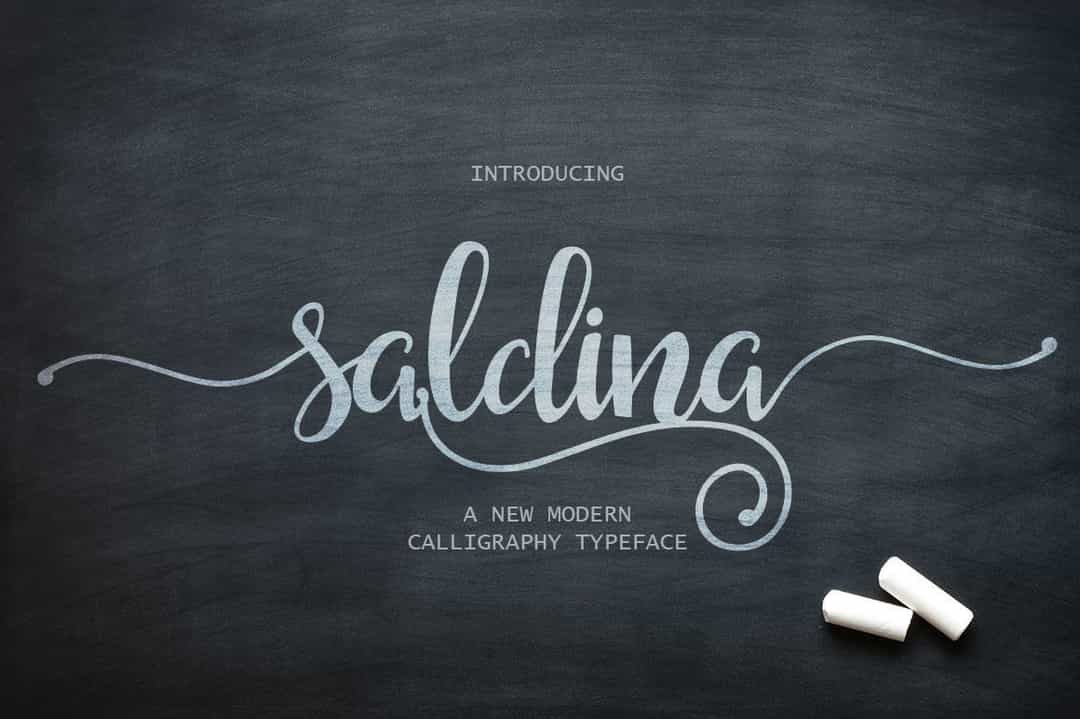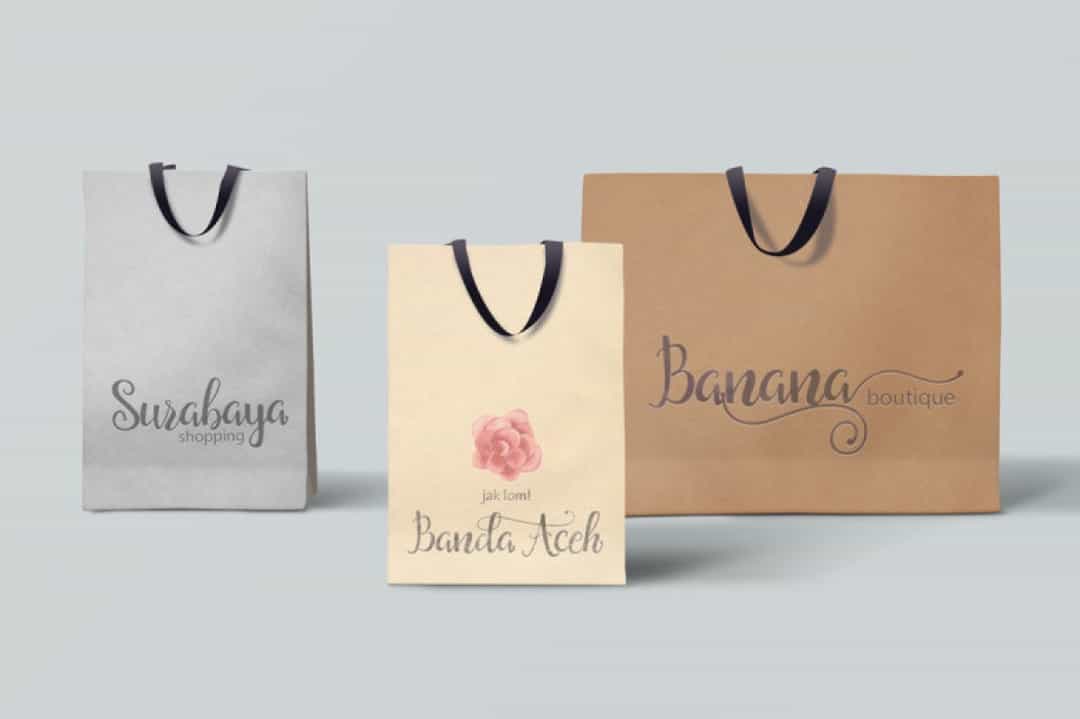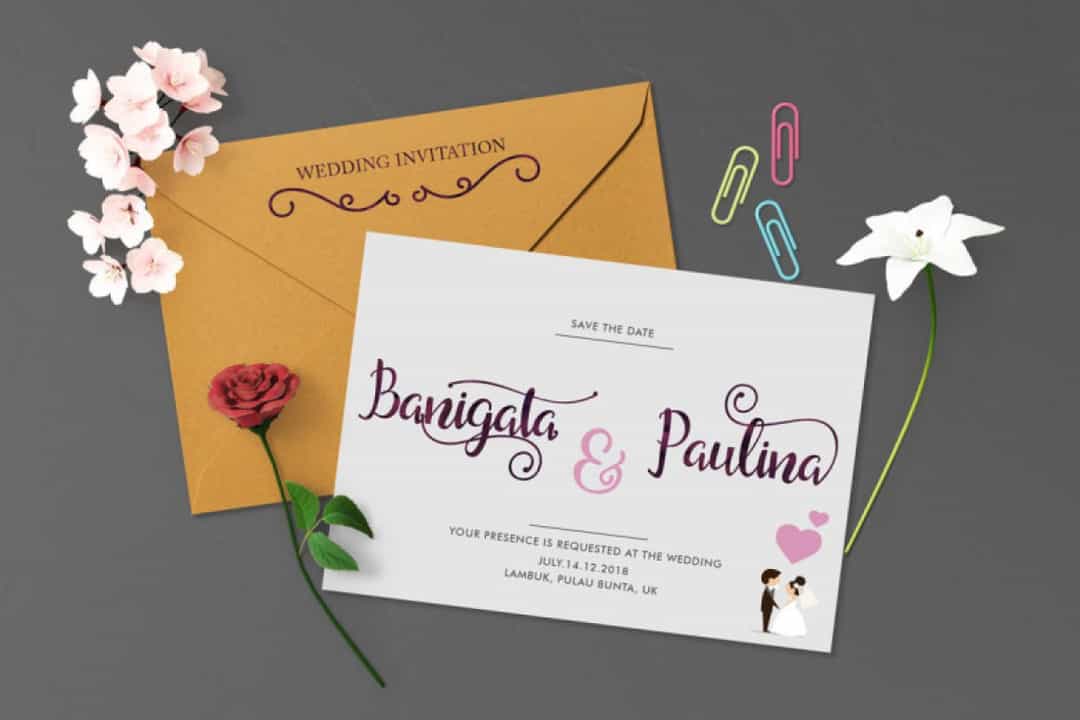
Saldina is a fancy script font which combines brush strokes and handwriting for pleasant effects in different projects like wedding invitations, adverts strictly in an aged style, greeting cards, posters, and book covers and illustrations.